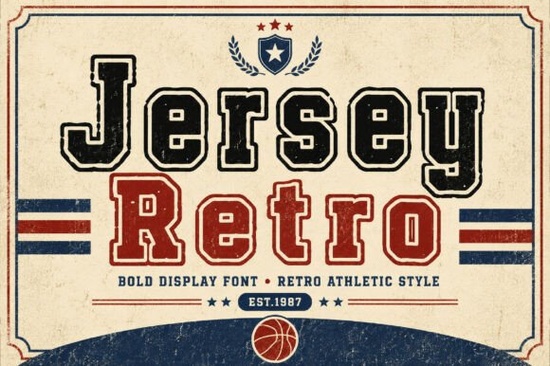
If you've been looking for a typeface that captures the bold, old-school feel of classic athletic lettering, Jersey Retro Font is designed for exactly that. It's a vintage sports display font with thick block letters and layered outline details the kind of typography you'd spot on retro team jerseys, gym posters, and varsity jackets. For designers, crafters, and print-on-demand sellers working on sports or streetwear projects, this font covers a lot of practical ground.
What Gives This Font Its Classic Athletic Look?
The design draws from traditional varsity and sports lettering styles. Bold, wide letterforms create that unmistakable toughness, while the vintage outline layers add depth and character. Together, these details produce text that's eye-catching and easy to read which matters when your design needs to be legible on a jersey across a basketball court or on a poster viewed from across the room.
If you've worked with display fonts before, you know the range is wide. Some typefaces, like a cute and simple display font, are built for soft, approachable projects. Jersey Retro heads in the opposite direction. It's confident, structured, and carries the energy of competitive sports without sacrificing clarity.
What Can You Design with a Vintage Sports Font?
This font works well anywhere you need athletic, varsity-style lettering. Here are some of the most common uses:
- Team jerseys and uniforms player names, numbers, and team names
- Sports event posters game day flyers, tournament promotions, score graphics
- Merchandise and apparel t-shirts, hoodies, and caps with bold athletic branding
- Gaming graphics stream overlays, esports team logos, YouTube thumbnails
- School and college designs spirit week graphics, club logos, yearbook layouts
- Streetwear branding logos, hang tags, label designs
The layered outline structure is especially useful for apparel and merchandise. You can use the base lettering alone for a clean look, or combine the outline layers for a richer, vintage effect. That flexibility means fewer font files to manage and more creative options from a single typeface something every busy seller or designer appreciates.
Which Fonts Pair Well with Jersey Retro?
Pairing fonts is about contrast and balance. Since Jersey Retro is bold and attention-grabbing, it pairs best with typefaces that complement without competing. A few options worth exploring:
- Varsity Famous Font if you want another classic college sports style, a well-known varsity typeface pairs naturally for multi-font sports designs and team branding kits
- Nitro Slash Font for a more aggressive, edgy direction, this sharp modern display font adds variety to your toolkit and works well for gaming projects
- Chicago Bulls Font when your project leans toward basketball or NBA-inspired themes, a basketball-themed display typeface is a natural fit
For body text or secondary information, stick with a clean, simple sans-serif. Let the display font do the heavy lifting for headlines, logos, and primary callouts.
Does It Work Well for Print-on-Demand Products?
Print-on-demand sellers need fonts that reproduce cleanly at different sizes from a small mug wrap to a large wall poster. Jersey Retro's bold letterforms and defined outlines hold up well across scales. The outline layers also give you options for multi-color prints, which is a real advantage for apparel sellers using DTG or screen printing methods.
When building a sports-themed store on platforms like Etsy, Redbubble, or your own website, having a reliable athletic font in your collection saves design time and keeps your branding consistent across products. Pair it with complementary display fonts to offer variety without straying from your store's visual identity.
Quick Design Checklist
- ✅ Decide whether you need the base font only or the layered outline version for your specific project
- ✅ Test the font at the size your final product will use check readability on jerseys, posters, and digital screens
- ✅ Pair it with a clean sans-serif for body text and secondary details